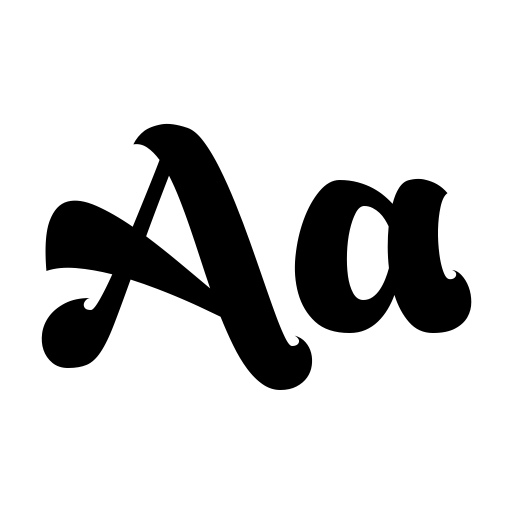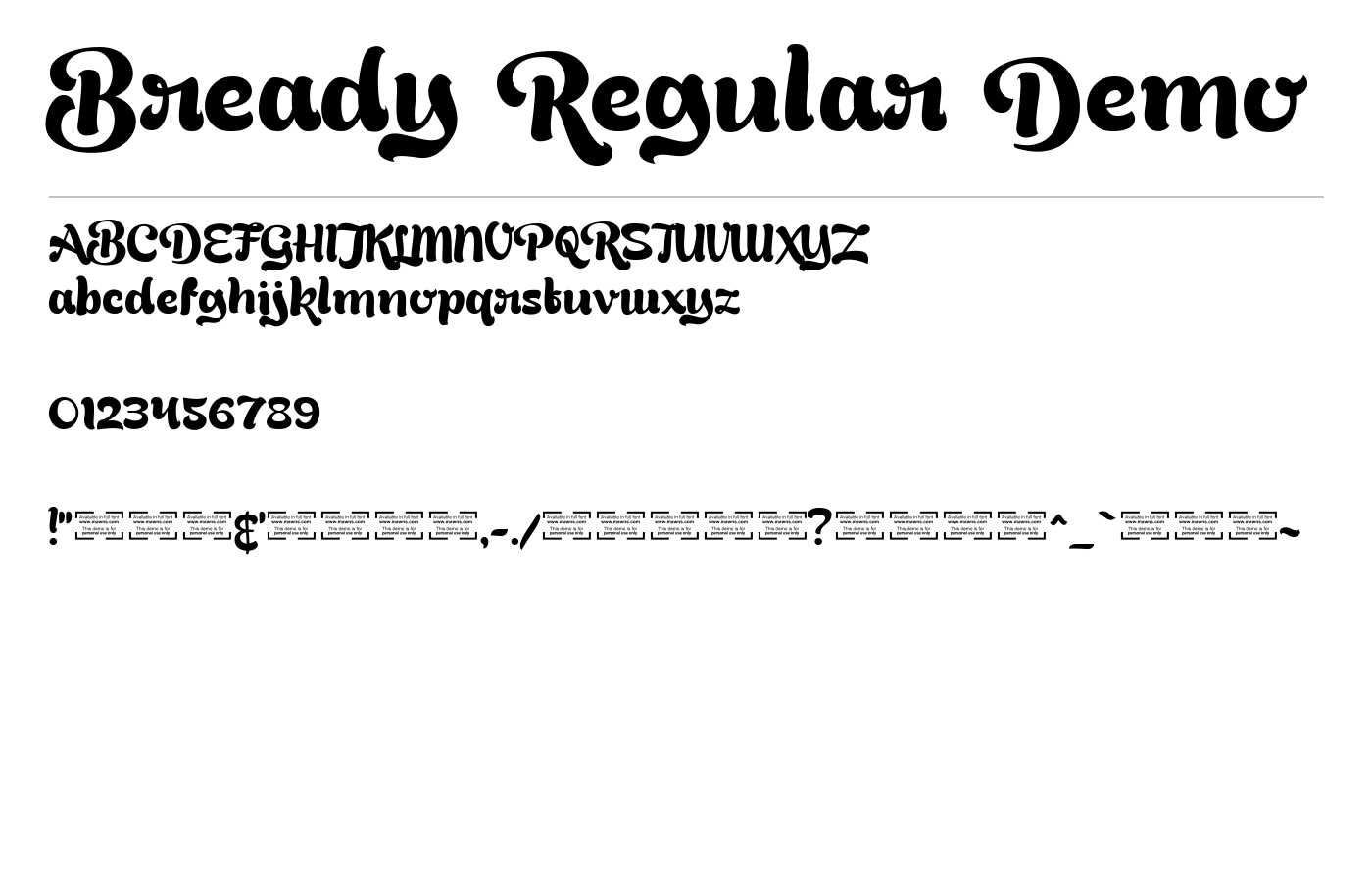
Bready Regular Demo is a bold, playful script-style font with strong, rounded strokes and decorative swashes that give it a lively, handcrafted feel. Its thick weight and slightly condensed letterforms make it eye-catching and ideal for fun, friendly branding or logos, especially where a whimsical, inviting personality is desired. This font works well in headlines or display uses where its unique, artisanal charm can truly stand out.
Bready Regular Demo Font
About Bready Regular Demo Font
| Font family | Bready Regular Demo Font |
| Designer | Måns Grebäck |